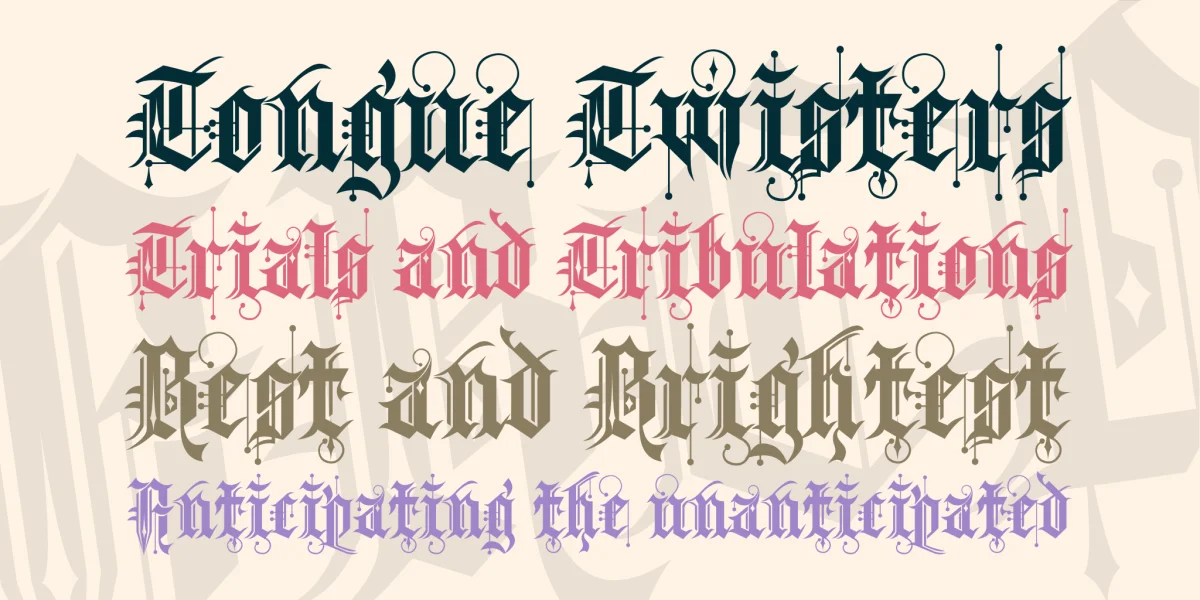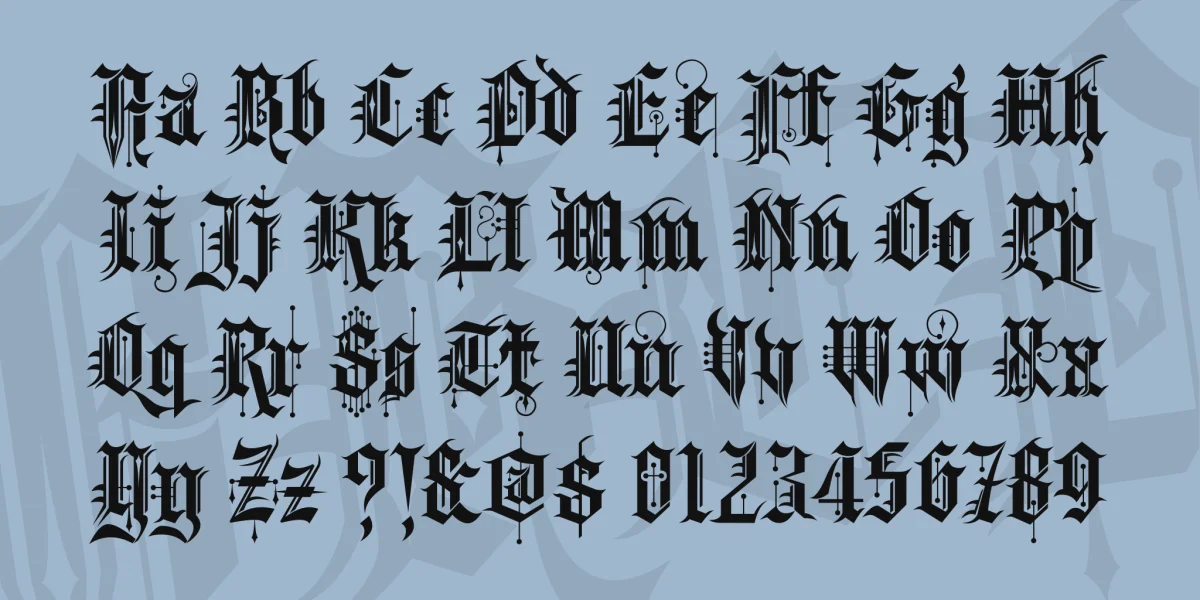
Kingthings Spike was made because Buffy has one, I made Xander... Willow is yet to come - (see below). Oh and because I hate Engravers Old English! Pugin, eat my shorts! Sorry!